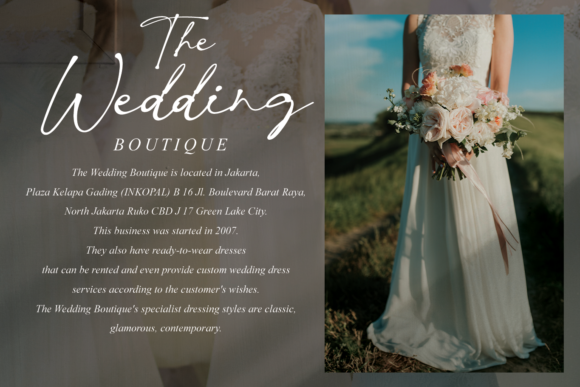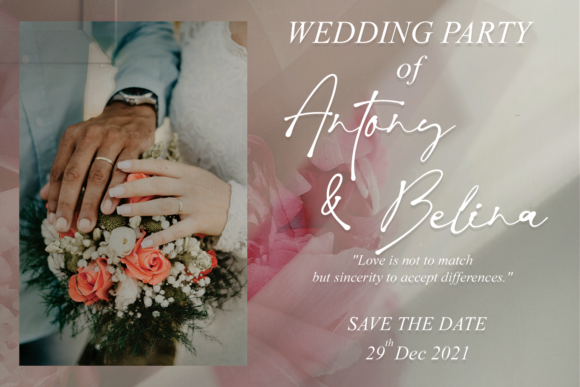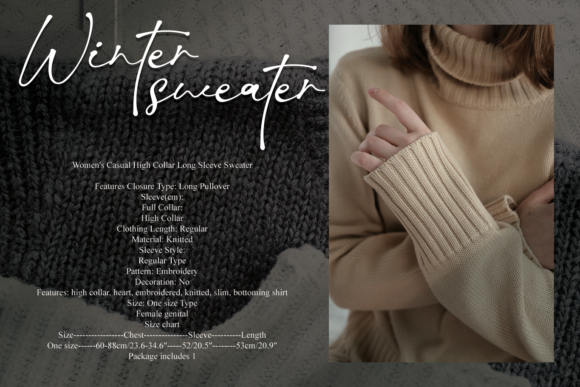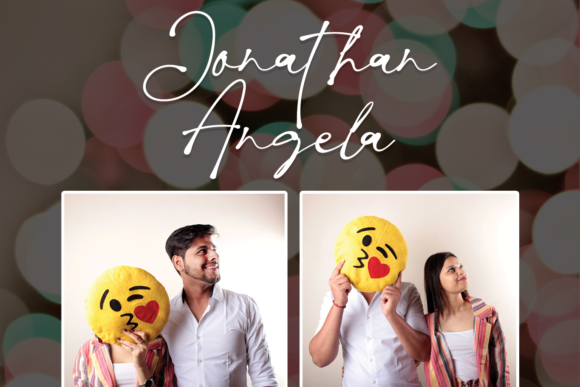
Deck the Halls with a Font that Dazzles
As a designer, have you ever been brainstorming ideas for a holiday project and felt like something was missing? Maybe it’s the perfect font to capture the magic of the season. That’s where Christmas Font comes in – a charming script font that adds a touch of whimsy and wonder to any design.
This delightful font features playful characters that seem to dance along the baseline, making it the perfect addition to any festive project. Whether you’re creating holiday cards, gift tags, or social media graphics, Christmas Font is sure to make your designs stand out. For designers, this font is a valuable tool for adding a personal touch to their work and making it truly special.
So why not give Christmas Font a try and see how it can elevate your holiday designs? With its unique charm and versatility, it’s sure to become a new favorite in your design arsenal.
Key Features of Christmas Font
- Unique Characteristics: The font features a festive, hand-drawn design with intricate details and ornaments, perfect for adding a touch of holiday cheer to designs.
- Character Set: The font includes a wide range of characters, including uppercase and lowercase letters, numbers, and special characters, making it suitable for use in various design contexts.
Designer Review: Christmas Font
Overall, I think Christmas Font is a decent addition to any festive design project. ✨ It has a playful, cheerful vibe that can immediately evoke the holiday spirit. The font is easy to read and works well for titles, headings, and short chunks of text.
- ✨ Playful and cheerful: Christmas Font does a great job of capturing the fun and excitement of the holiday season.
- ✨ Easy to read: The font is clear and legible, making it suitable for a wide range of design projects.
- ✨ Customizable: You can adjust the font size, color, and style to fit your design needs.
However, there are a few limitations to consider. ⚠️ While Christmas Font is a great choice for short texts, it can become cluttered and overwhelming when used extensively. Additionally, the font may not be the best choice for body text, as it can be difficult to read in large quantities.
- ⚠️ Limited versatility: Christmas Font is best suited for short, attention-grabbing text and may not be the best choice for body text or longer blocks of content.
- ⚠️ Cluttered appearance: Using Christmas Font extensively can lead to a cluttered and overwhelming design.
Overall, I think Christmas Font is a solid choice for festive design projects, but it’s essential to use it thoughtfully and in moderation to avoid overwhelming your audience.
Getting the Most Out of Christmas Font
To get the most out of Christmas Font, use it to add a festive touch to your holiday designs, such as:
- Christmas cards and invitations
- Holiday social media graphics
- Decorative headings and titles
Christmas Font is perfect for:
- Winter wonderland-themed designs
- Festive holiday ads and promotions
- Seasonal social media posts and stories